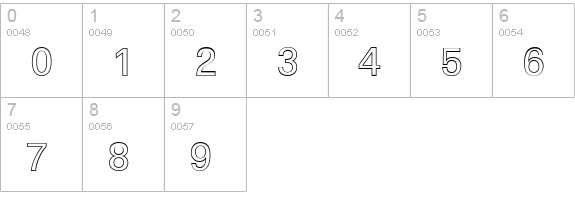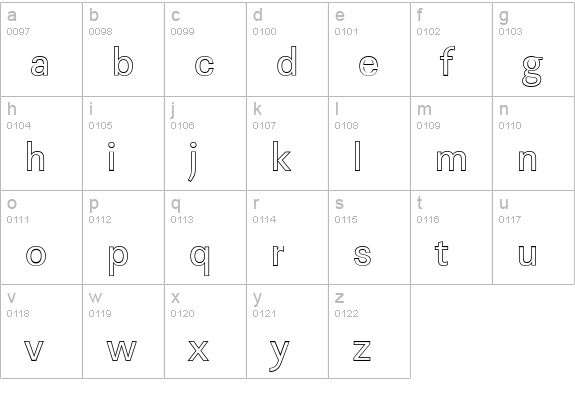
LinearOu-Regular is the standard, neutral variant in the LinearOu typeface family \xE2\x80\x94 well suited to general body text, paragraphs, and standard typographic work.
LinearOu-Regular font is a modern and versatile typeface that exudes simplicity and elegance. Its clean lines and sharp edges make it perfect for a wide range of design projects, including branding, headlines, and body text. The font's balanced spacing and consistent letterforms ensure excellent readability in any size or format. LinearOu-Regular font is a great choice for designers looking to add a touch of sophistication to their work. Whether you're creating a sleek website, a stylish poster, or a professional business card, this font will elevate your design to the next level. Best of all, LinearOu-Regular font is completely free to download at FontsMarket.com. So why wait? Add this versatile and stylish font to your collection today and start creating stunning designs with ease.